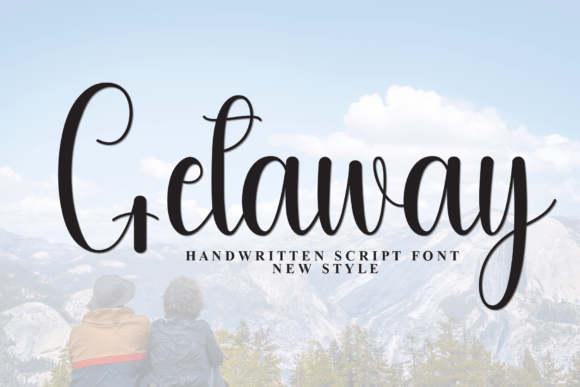
Introducing Getaway Font: Elevate Your Designs with Elegance and Modern Charm
In the world of typography, a font can make all the difference in the success of a design project. Whether you’re a graphic designer, a small business owner, or a marketing professional, finding the right font is crucial to conveying your message and capturing the attention of your audience. If you’re looking for a stylish script font that exudes elegance and modern charm, look no further than Getaway Font.
The Beauty of Getaway Font
Getaway Font is a stunning script font that is designed to capture the beauty of hand-drawn calligraphy with a contemporary edge. Featuring fluid strokes, graceful curves, and carefully balanced letterforms, this font is perfect for adding a touch of sophistication and personality to any design. With its natural flow and refined details, Getaway Font delivers both visual appeal and versatility, making it an ideal choice for a wide range of design projects.
Key Features of Getaway Font
- Fluid Strokes: Getaway Font features fluid strokes that give it a natural, hand-drawn feel.
- Graceful Curves: The font’s graceful curves add a touch of elegance and sophistication to any design.
- Carefully Balanced Letterforms: Each letterform has been carefully crafted to ensure balance and harmony, making it easy to read and visually appealing.
- Contemporary Edge: Getaway Font has a modern twist that sets it apart from traditional script fonts.
Perfect for a Variety of Design Projects
Getaway Font is an incredibly versatile font that can be used for a wide range of design projects. Whether you’re looking to create a stunning logo, a beautiful invitation, or a professional packaging design, this font is sure to impress. It’s also perfect for social media graphics, website headers, and any other design project where you want to make a statement.
Ideal Uses for Getaway Font
- Logos: Getaway Font is perfect for creating elegant and sophisticated logos that will help your brand stand out.
- Invitations: Whether you’re planning a wedding, a birthday party, or any other special event, this font is sure to add a touch of class and sophistication to your invitations.
- Packaging: Getaway Font is an excellent choice for packaging design, adding a touch of elegance and refinement to any product.
- Social Media Graphics: Use Getaway Font to create stunning social media graphics that will help you connect with your audience and build your brand.
Why Choose Getaway Font?
There are many script fonts available, but Getaway Font stands out from the crowd. Here are just a few reasons why:
- Unique Design: Getaway Font has a unique design that is both elegant and modern.
- High-Quality: This font is designed to deliver high-quality results, with clear and crisp lines that will look great in any design.
- Versatile: Getaway Font can be used for a wide range of design projects, making it a great addition to any designer’s toolkit.
Tips for Using Getaway Font
To get the most out of Getaway Font, here are a few tips to keep in mind:
- Use it Sparingly: While Getaway Font is beautiful, it’s best used sparingly to avoid overwhelming your design.
- Pair it with Other Fonts: Getaway Font pairs well with other fonts, so don’t be afraid to experiment with different combinations.
- Experiment with Colors: This font looks great in a variety of colors, so don’t be afraid to try out different options.
- Pay Attention to Size: Make sure to adjust the size of your text to ensure that it is legible and visually appealing.
Getaway Font is a stunning script font that is sure to elevate your designs with its elegance and modern charm. With its fluid strokes, graceful curves, and carefully balanced letterforms, this font is perfect for adding a touch of sophistication and personality to any design. Whether you’re a graphic designer, a small business owner, or a marketing professional, Getaway Font is an excellent choice for any design project.
Get Ready to Take Your Designs to the Next Level